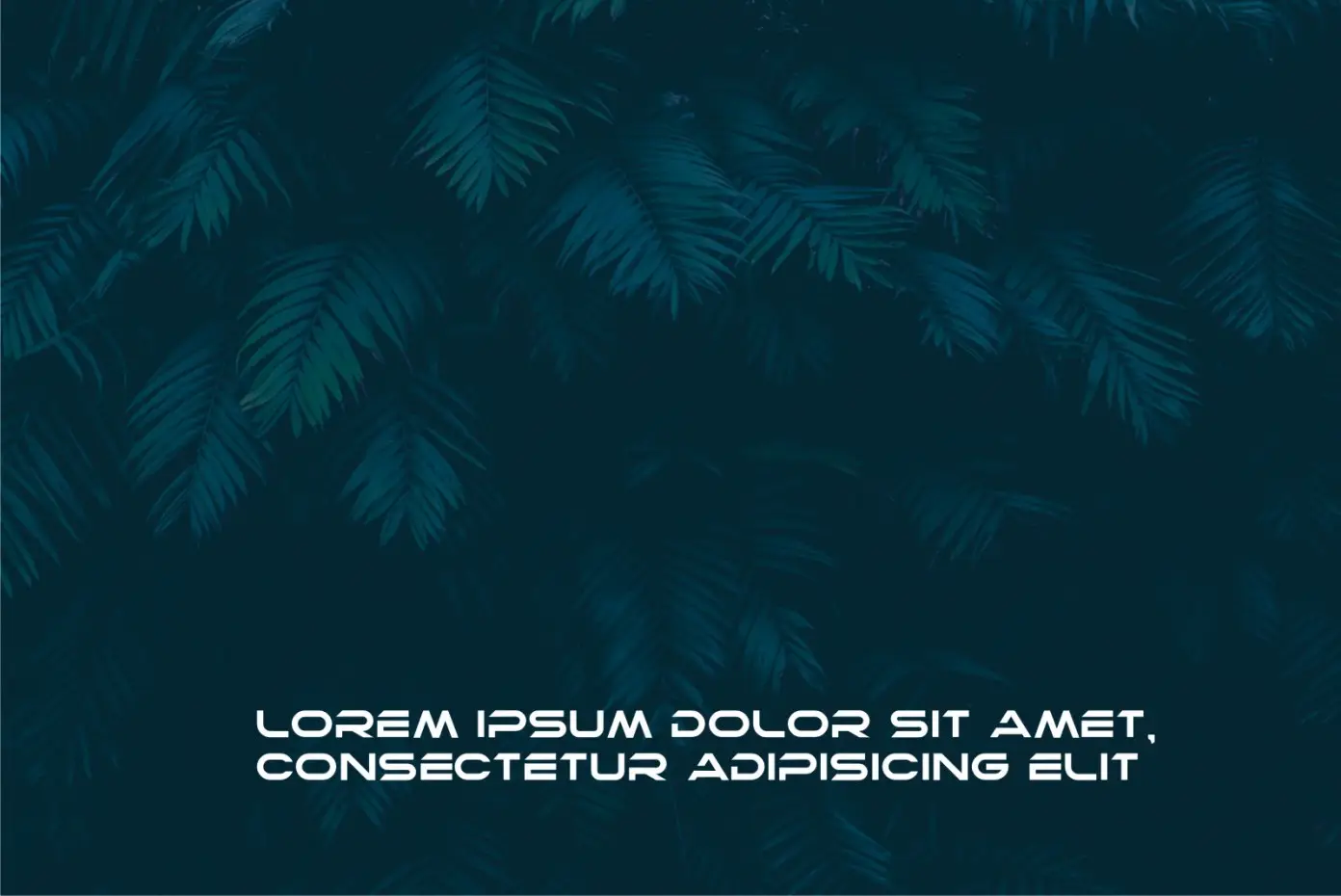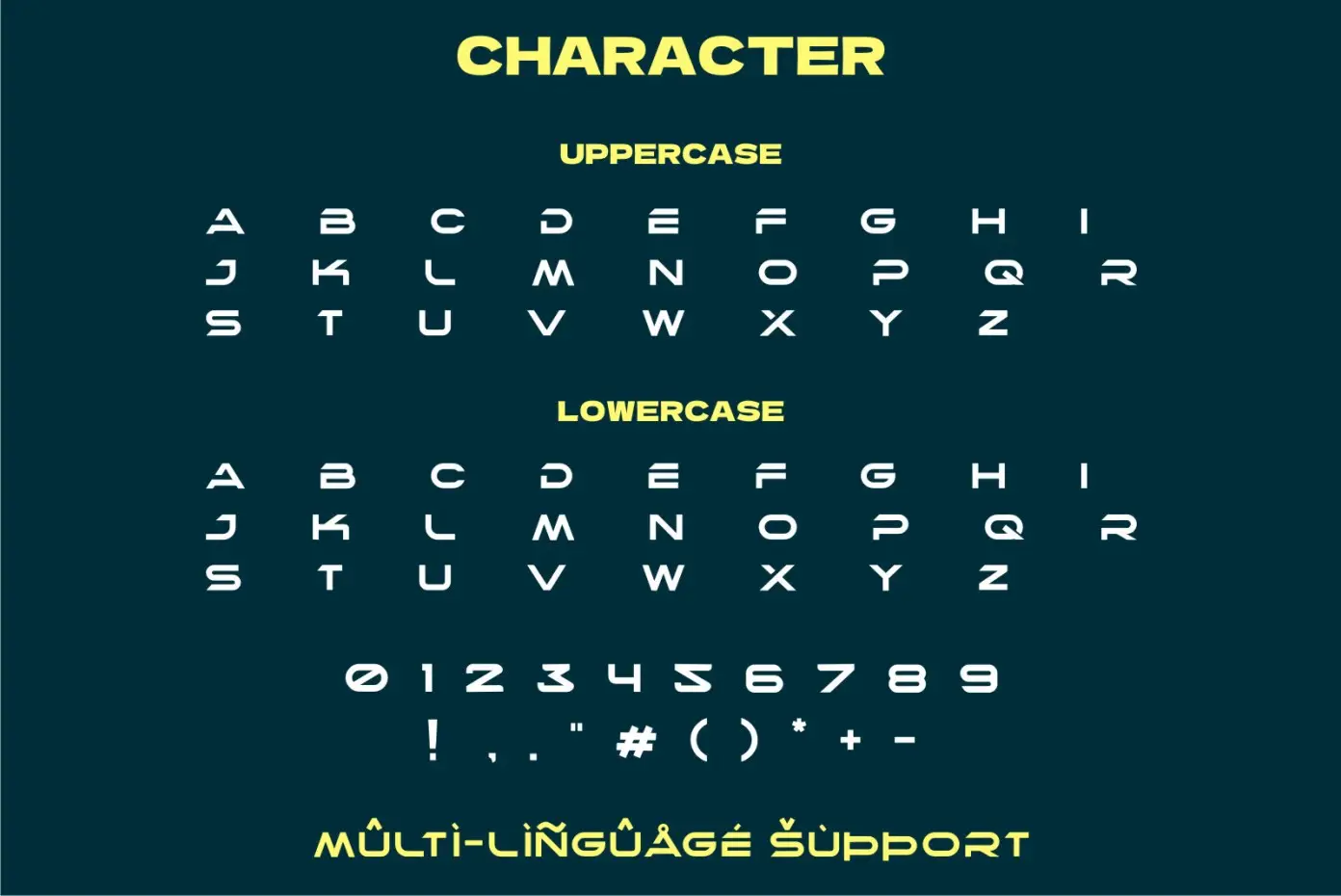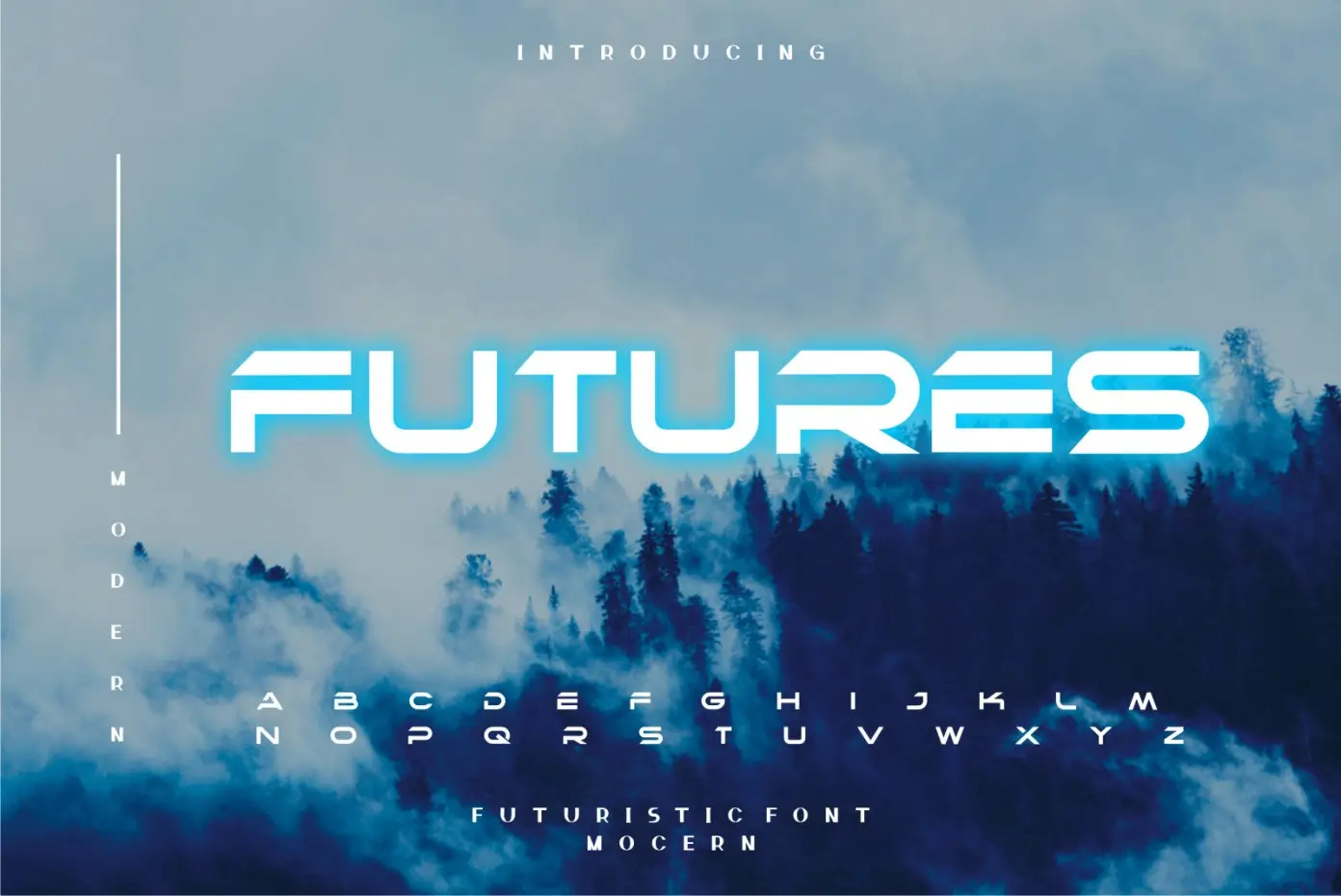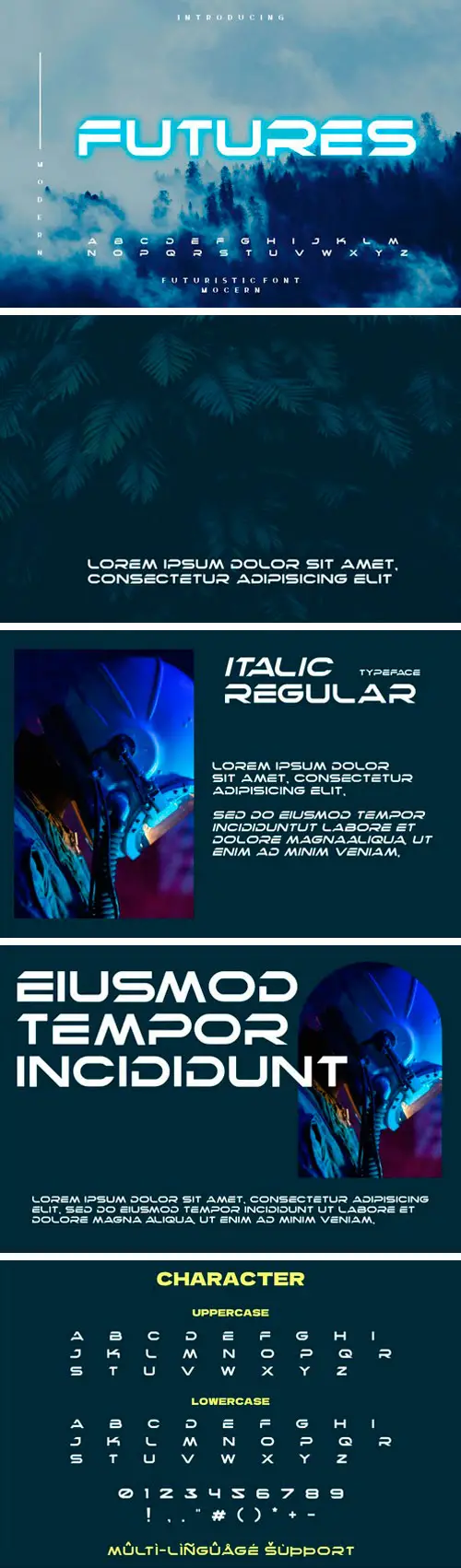
Futures Display Font
The Futures Display Font is a modern and stylish typeface designed for impactful visual communication. It features a unique blend of geometric shapes and clean lines, making it perfect for a variety of design projects.
• Available in multiple weights for versatility
• Stylish ligatures for a polished look
This font is ideal for branding, logos, web design, print materials, and user interfaces. Its bold presence ensures it stands out in any application.